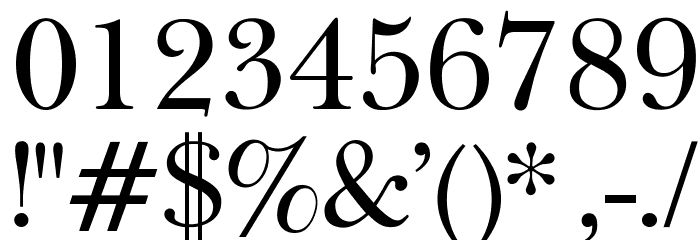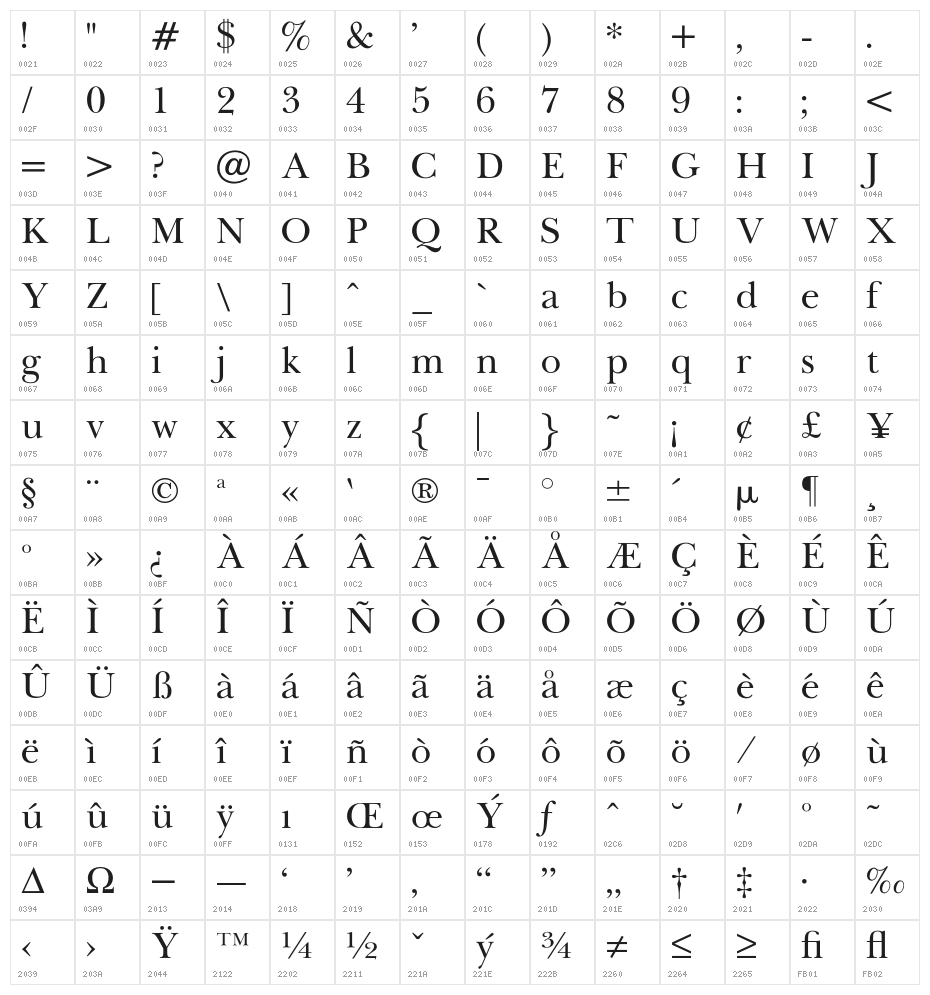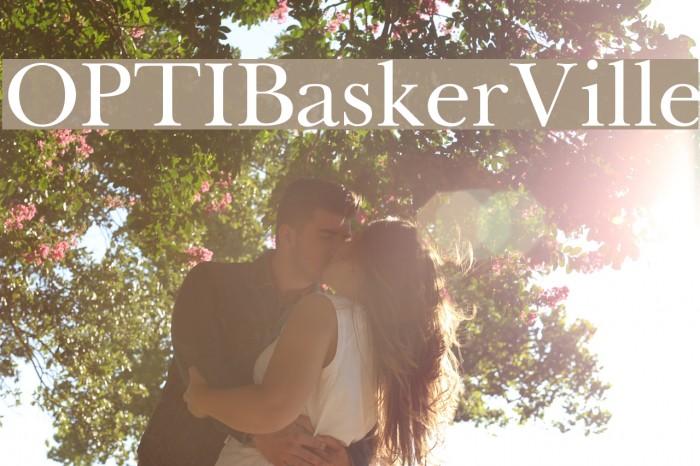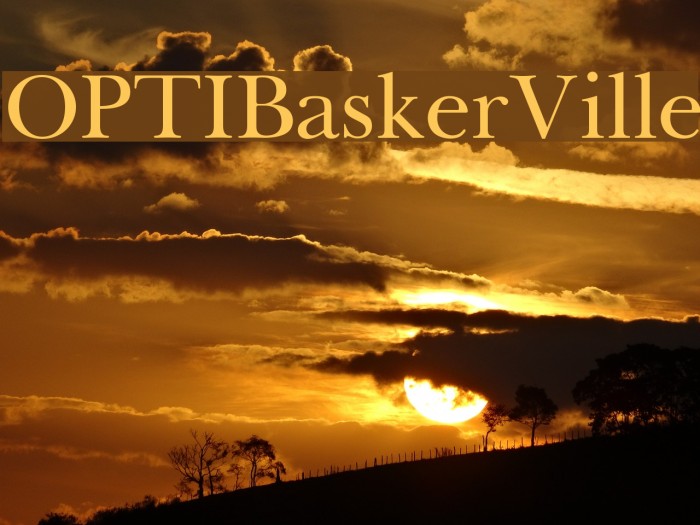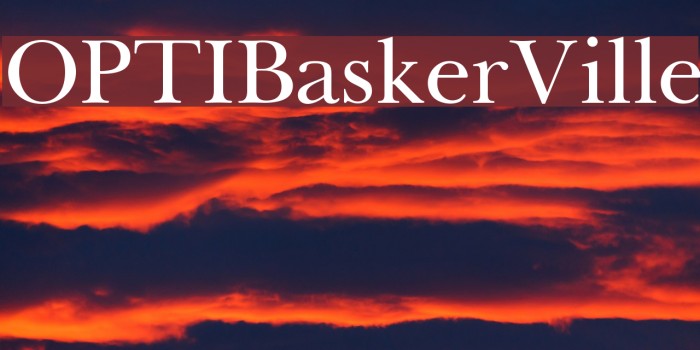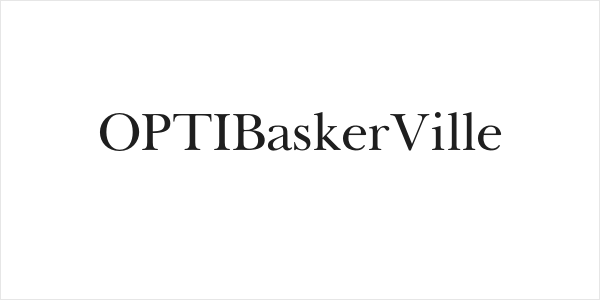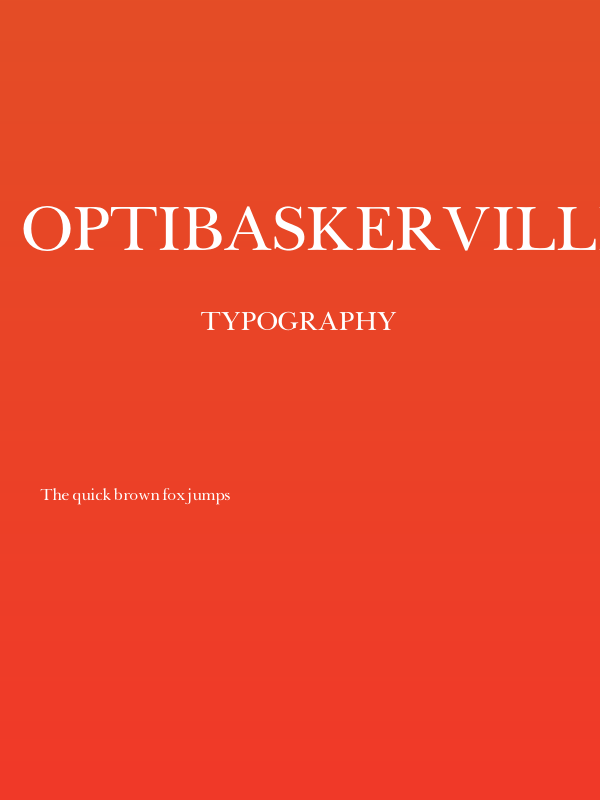
OPTIBaskerVille Font
OPTIBaskerVille Description
This font exhibits a classic serif style with elegant and refined strokes. The uppercase letters are bold and commanding, while the lowercase letters maintain a graceful and balanced appearance. The numerals are clear and distinct, making them highly legible. The special characters are well-integrated, maintaining the font's overall aesthetic. The serifs are pronounced, adding a touch of sophistication and tradition. This font is versatile, suitable for both formal and creative applications, providing a timeless appeal.
| Proposed Projects | Ideal for book typesetting, formal invitations, branding, and editorial design. |